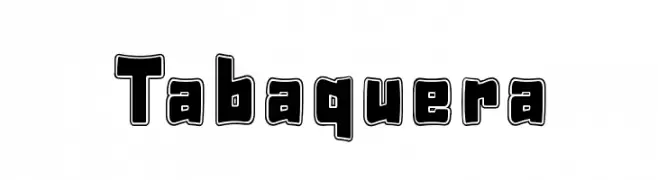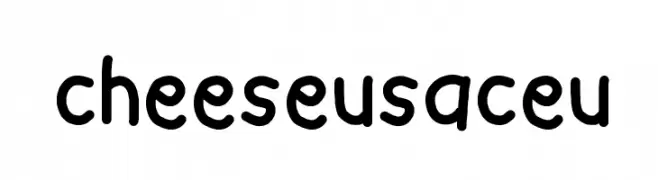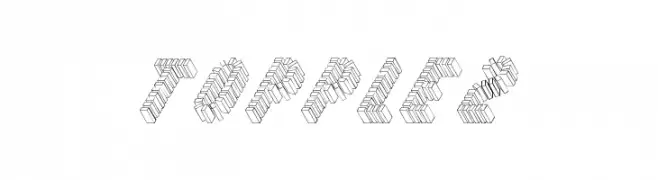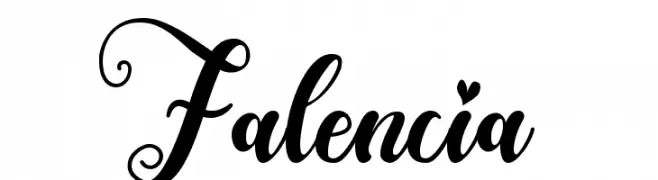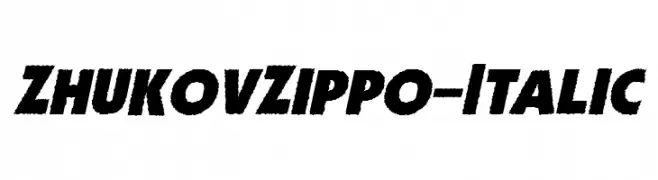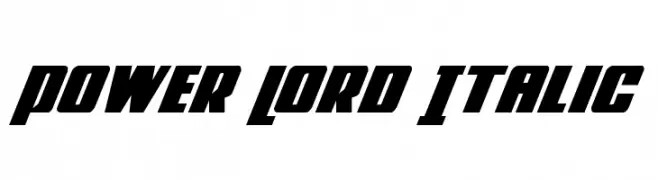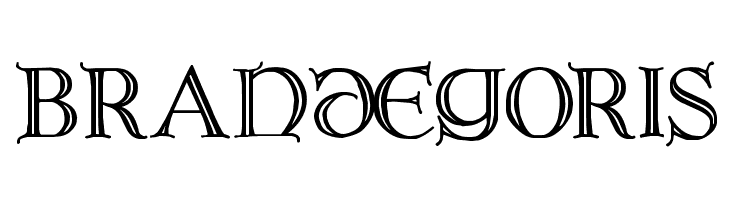
A playful, hand-drawn font with rounded, consistent strokes and a casual style.
A bold, italicized font with a calligraphic and medieval-inspired style.
A 3D block-style font with intricate line work and a bold, playful appearance.
An elegant and flowing script font with intricate swirls and loops.
A bold, italicized font with a dynamic and modern style.
A bold, italic font with angular lines and a dynamic, modern style.
A bold, geometric sans-serif font with a monospaced appearance.